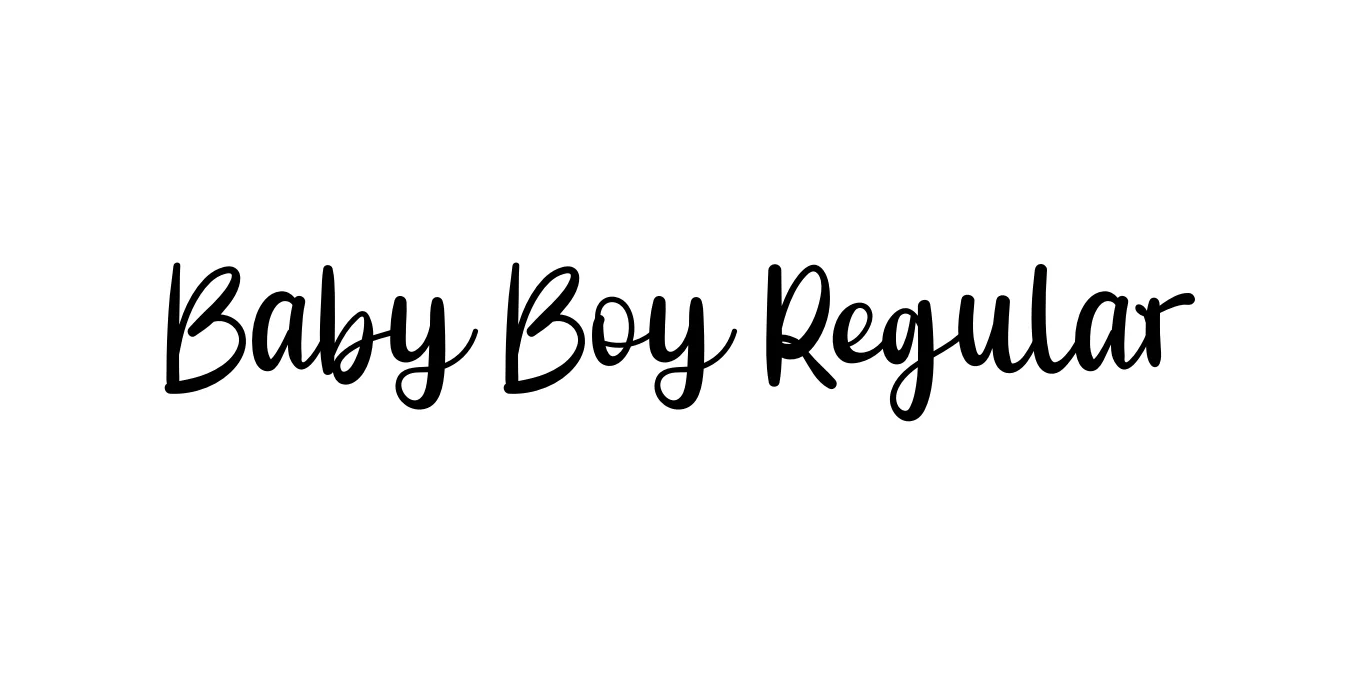
Baby Boy Regular
Designed by Kong Font
| Category | Rounded Display Script |
Baby Boy Regular emerged during the mid-2010s digital design boom, specifically targeting the niche market of artisanal baby products and boutique stationery. Originally conceived as a digital-first display face, its history is rooted in the transition from traditional hand-lettered scrapbooking styles to clean, scalable vector typography. The typeface was engineered to bridge the gap between whimsical handwriting and functional display types, capturing the softness of early childhood while maintaining the technical precision required for modern digital printing.
Technically, the font is characterized by its exceptionally rounded terminals and a lack of aggressive angles, which effectively eliminates visual tension within a layout. The x-height is generously oversized relative to its ascenders, ensuring that the counters of lowercase letters like 'b' and 'o' remain open and legible at various display sizes. Its stroke weight is remarkably consistent, exhibiting very low contrast, which provides a cohesive visual rhythm and a 'plump' aesthetic that reinforces a friendly, approachable mood. The kerning pairs are tight, designed to create a unified word-block appearance often sought in logotype design.
Baby Boy Regular Best Uses
Ideal for logos and signage in childcare centers or baby boutiques.
Perfect for baby shower invitations, birth announcements, and birthday cards.
Excellent for toy boxes, children's apparel labels, and snack packaging.
Great for social media graphics targeting parents and family-oriented communities.